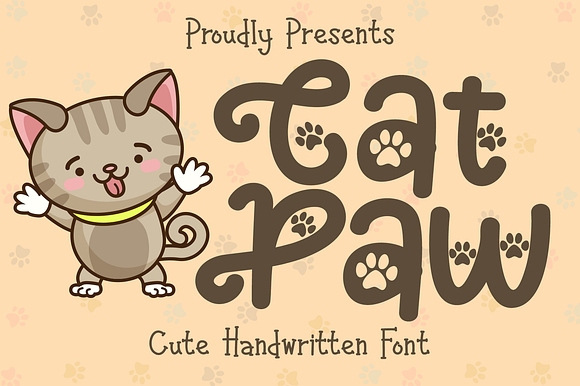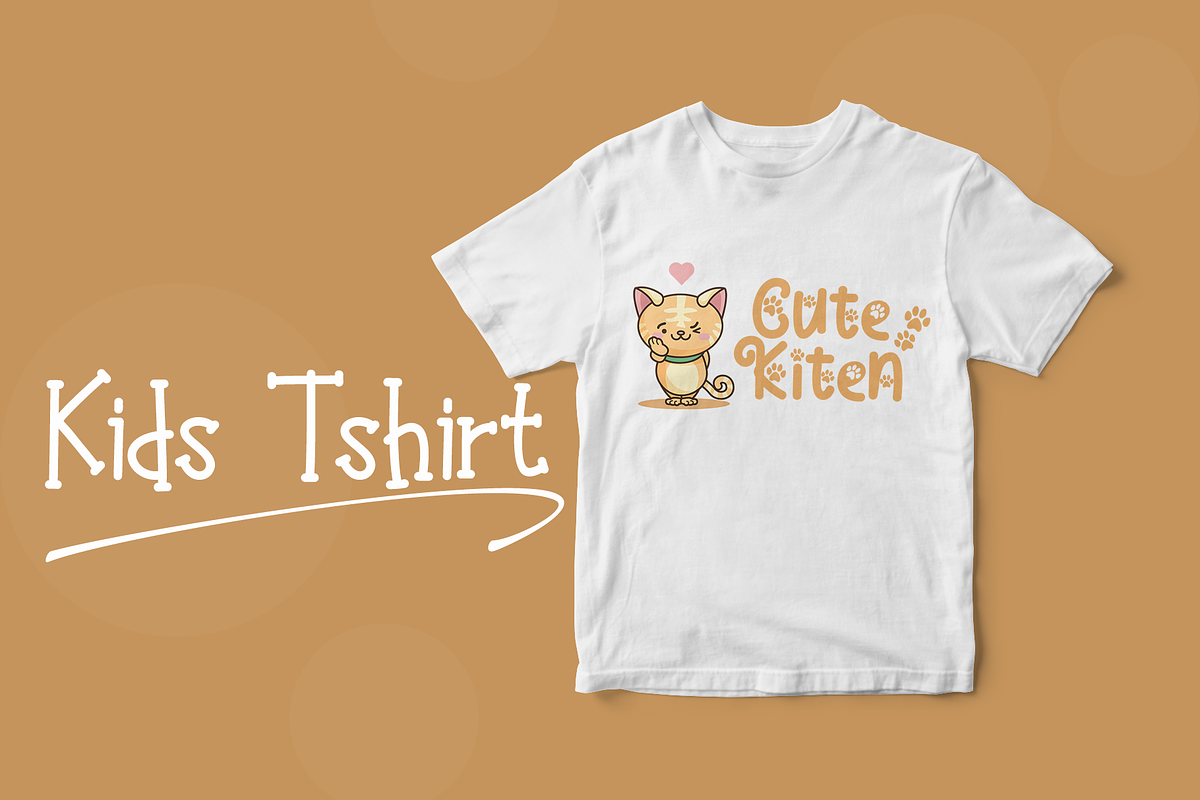
Cat Paw // Display Font
Cat Paw embodies fun, quirkiness and authenticity. This enchanting handwritten font will turn any creative idea into a true standout. It will elevate a wide range of design projects to the highest level, be it branding, headings, wedding designs, invitations, signatures, logos, labels, and much more!
Cat Paw // Display Font by BearyType Studio fits naturally into Branding, posters, packaging, typography.